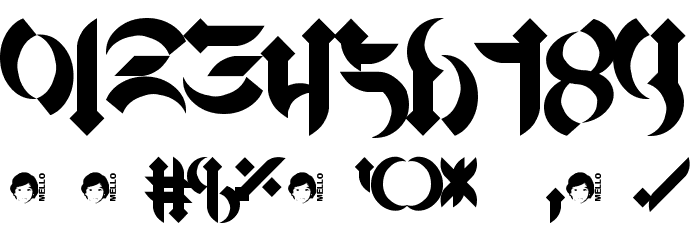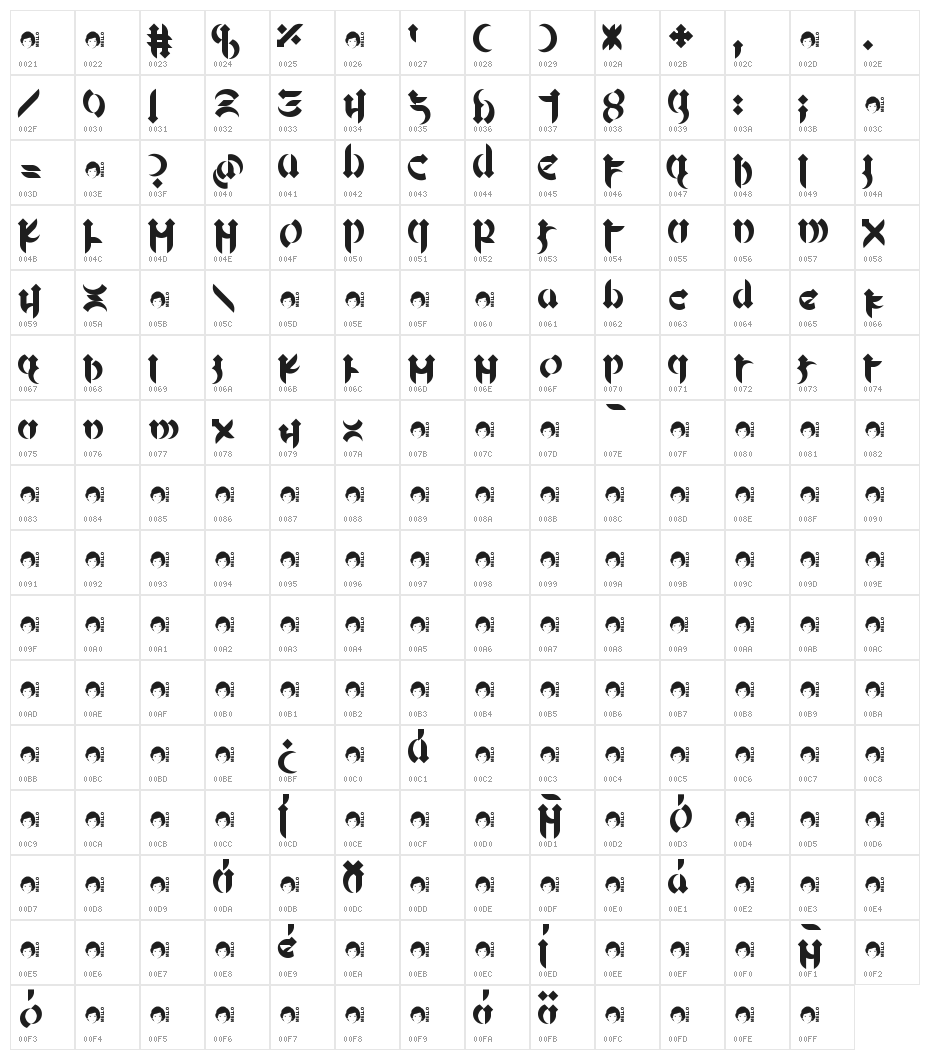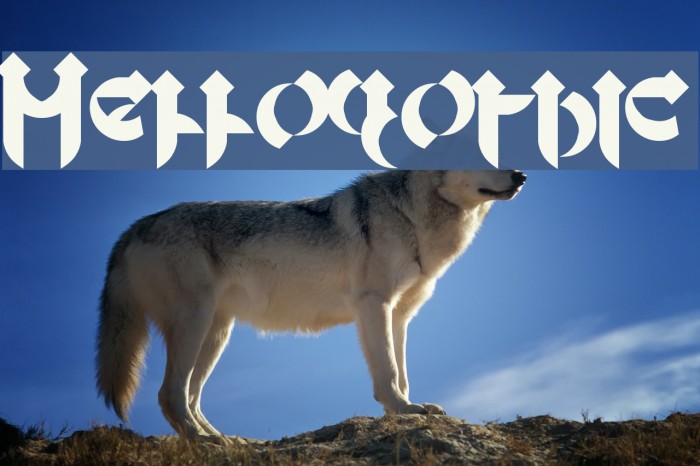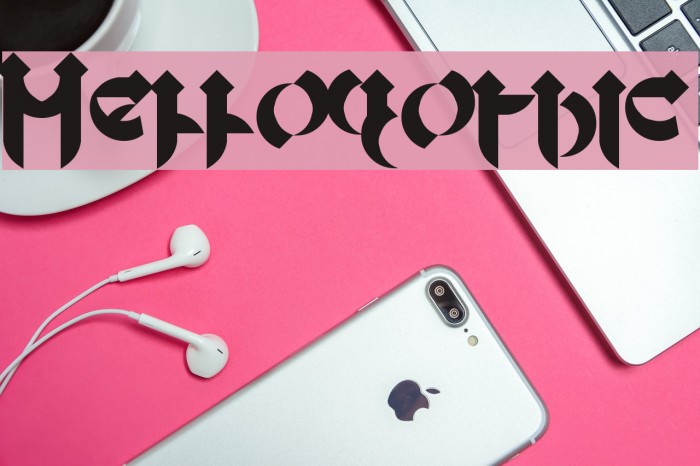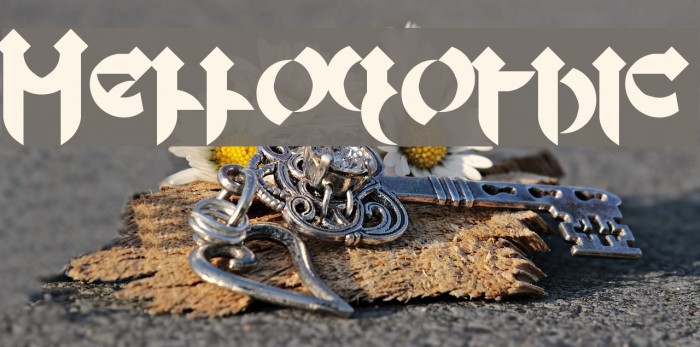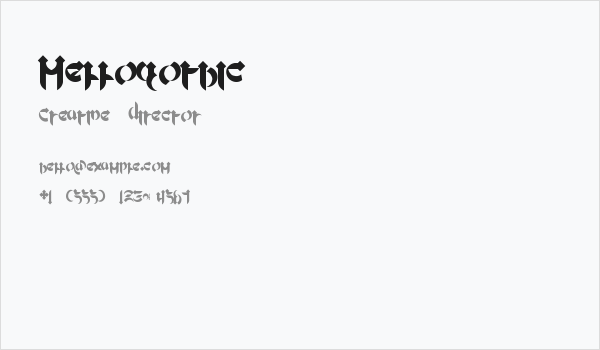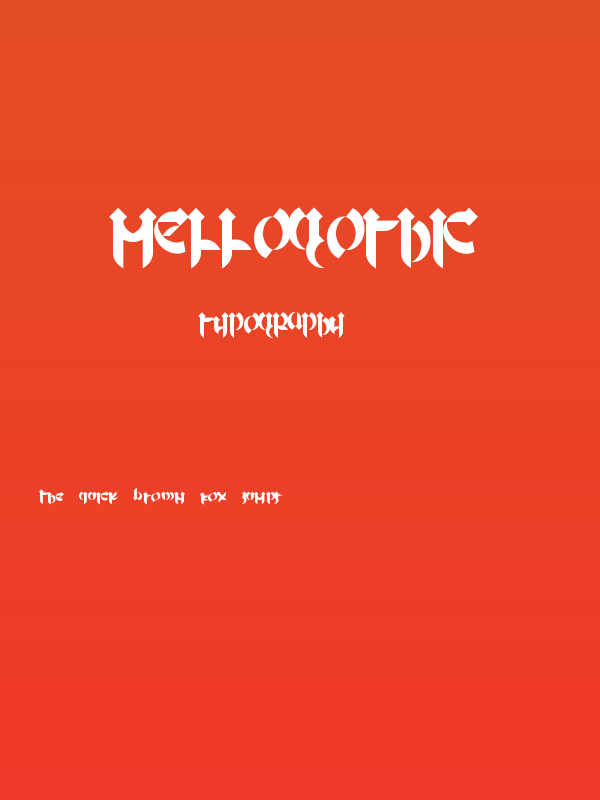
Mellogothic Font
Mellogothic Description
This font exhibits a bold and striking blackletter style, characterized by its sharp, angular lines and intricate detailing. The uppercase and lowercase letters maintain a consistent gothic aesthetic, with each character featuring pointed edges and a strong vertical emphasis. The numbers and special characters are equally ornate, blending seamlessly with the overall design. This font's dramatic appearance makes it ideal for projects that require a historical or medieval touch, while its boldness ensures it stands out in any context.
| Overall Style | Gothic, Medieval |
| Use Case | Headlines, Logos, Decorative text |
| Proposed Projects | Ideal for historical-themed designs, book covers, posters, and branding that requires a medieval or gothic touch. |